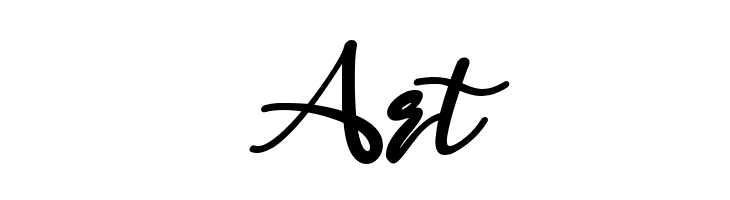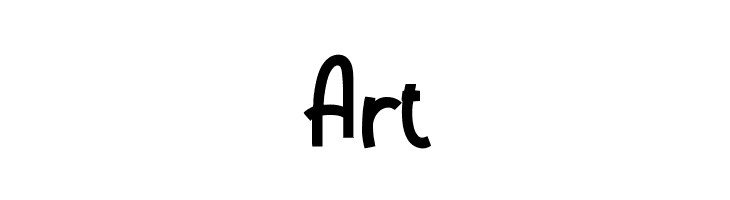
A playful font with characters inside balloon shapes, perfect for festive designs.
A bold, distressed gothic font with a grunge texture.
A bold, 3D font with a vintage-inspired, shadowed design.
An elegant and flowing script font with graceful curves and refined flourishes.
A modern, dotted decorative font with a playful and unique style.
A playful, hand-drawn font with bold, rounded letterforms.
A geometric, angular font with bold, abstract forms for a modern, edgy look.
A bold, angular font with sharp edges and geometric shapes, ideal for modern designs.
A geometric, angular font with a futuristic and edgy design.
A bold, fluid script font with interconnected, expressive strokes.